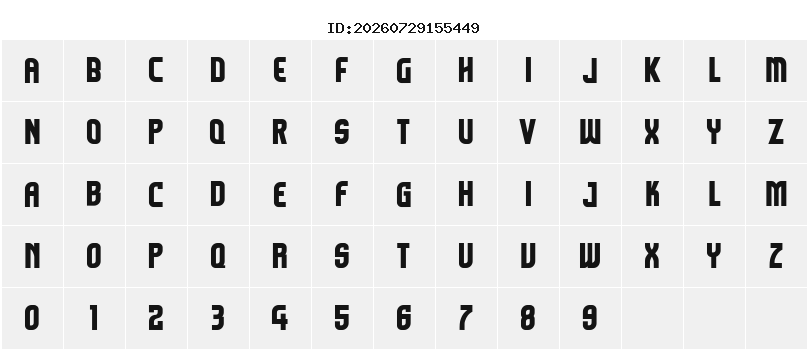
Komikazoom Preview
• Font Name: Komikazoom
• Full Font Name: Komikazoom
• PostScript Name: Komikazoom
• Designer: Apostrophe
About Komikazoom.ttf
Komikazoom.ttf is a modern, elegant sans-serif font designed for ultimate readability and visual harmony. Perfect for branding, headlines, web design, and print materials.